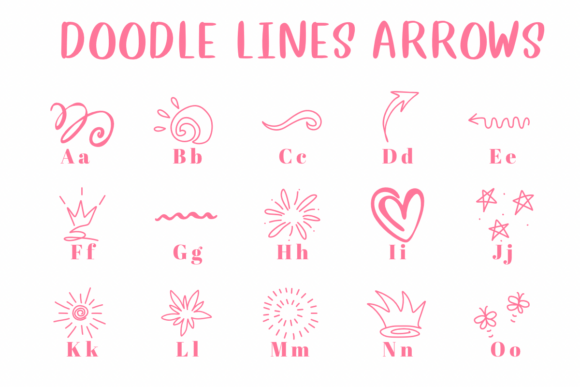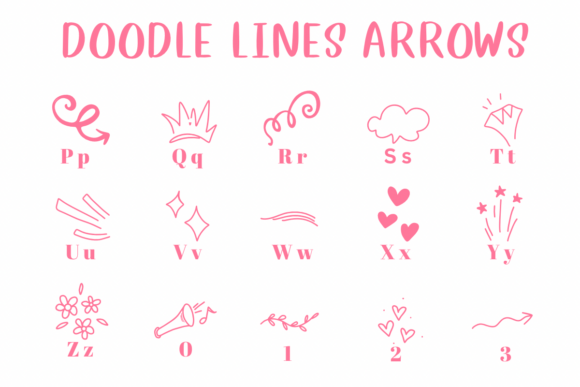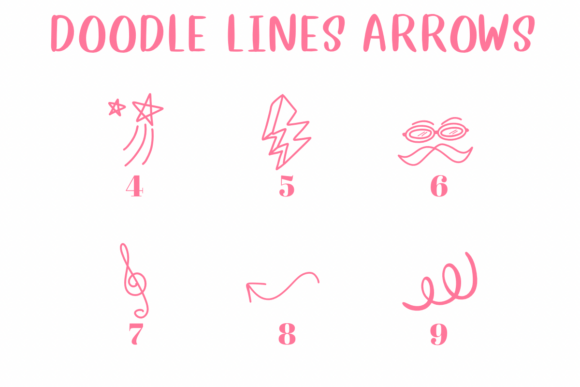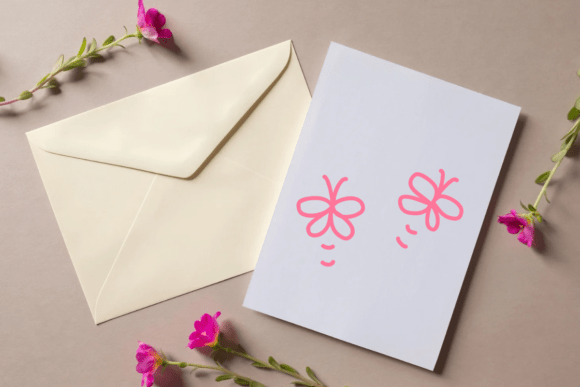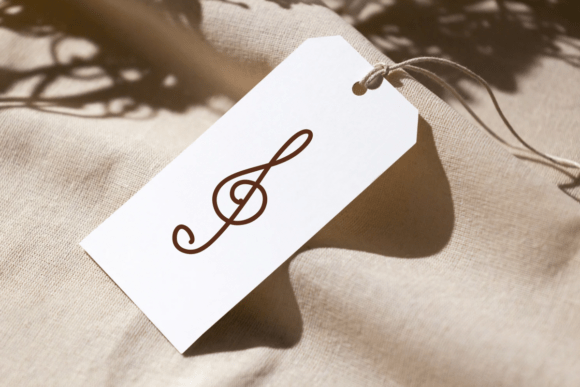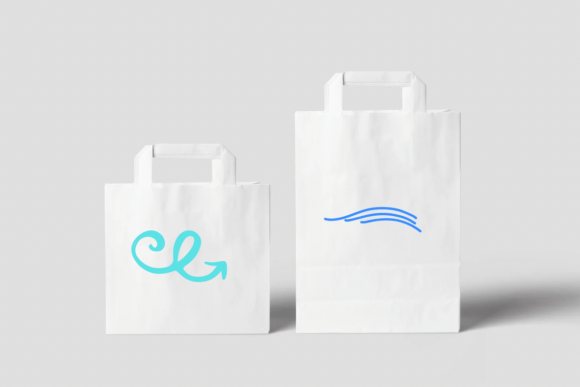
Introduction to Doodle Lines Arrows Font
Have you ever stared at a blank page, desperately searching for the perfect element to bring your creative project to life? It’s a feeling we’re all too familiar with. As designers, we crave that one special detail that sets our work apart and makes it truly unique. For those seeking a playful and whimsical flair, the Doodle Lines Arrows Font is here to save the day. This delightful dingbats typeface is packed with hand-drawn elements like squiggles, stars, hearts, and quirky arrows, making it the perfect design resource for any creative endeavor.
What sets the Doodle Lines Arrows Font apart is its high quality and versatility. With a transparent background, you can easily integrate these charming symbols into your designs without any visual clutter. Plus, the best part? It’s a free download, making it accessible to designers of all levels. Whether you’re working on a scrapbook, kids’ project, or social media post, this font is sure to add a light-hearted touch that will leave a lasting impression.
Key Features of Doodle Lines Arrows Font
- High-quality design resource ideal for creative projects, including illustrations, graphics, and digital art.
- Includes a range of doodle lines and arrows in various styles, perfect for adding a personal touch to designs.
- Comes in a range of sizes, from small to large, to suit different design needs.
- Unique characteristics include a playful, hand-drawn feel and a wide range of customization options.
Honest Review: Doodle Lines Arrows Font
I recently stumbled upon the Doodle Lines Arrows Font, and I must say, it’s a fantastic addition to any designer’s toolkit. This free download is perfect for creative projects that require a playful and whimsical touch.
- High-quality vector graphics that are scalable and crisp.
- Transparent background option, making it easy to layer over any image or background.
- Extensive library of arrow and line elements, making it versatile for various design needs.
- Simple and easy-to-use font, perfect for designers of all skill levels.
- Some users may find the doodle style too simplistic or lacking in detail.
- The font may not be suitable for formal or professional projects, due to its playful nature.
Overall, I’m thoroughly impressed with the Doodle Lines Arrows Font. It’s a fantastic resource for designers looking to add a touch of whimsy to their creative projects. While it may not be perfect for every design need, its versatility and high-quality graphics make it a valuable addition to any designer’s toolkit.
Designing with Doodle Lines Arrows Font
The Doodle Lines Arrows Font is a unique and creative design resource perfect for adding a playful touch to your projects. With its high-quality, hand-drawn design, this font is ideal for use in presentations, social media graphics, and other creative projects.
To get the most out of the Doodle Lines Arrows Font, try combining it with other design elements, such as bold text and bright colors, to create a visually appealing design. You can also experiment with different font sizes and styles to add depth and interest to your project.
The Doodle Lines Arrows Font is perfect for use in a variety of creative projects, including:
- Presentation slides
- Blog posts and articles